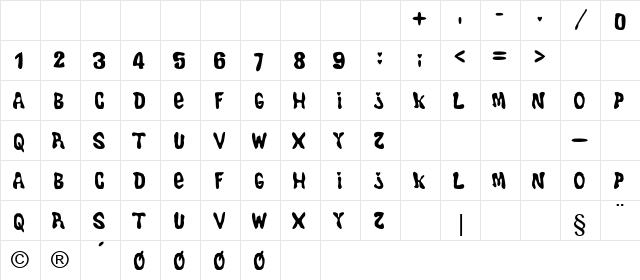
dziewity finaB Regular
Design Context for dziewity finaB Typeface
dziewity finaB is a composed and adaptable typeface that performs quietly and consistently across a wide range of design contexts.